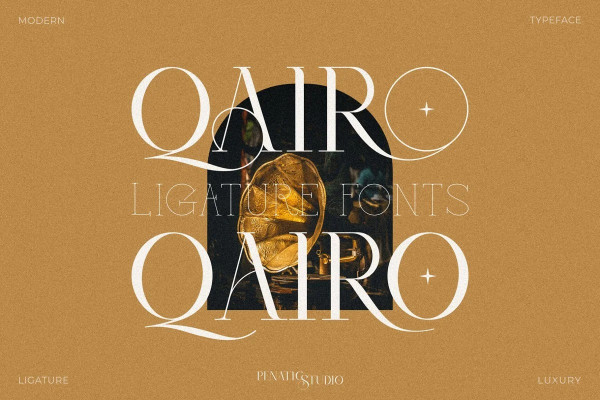
Qairo Font
Qairo Font a very classy modern serif font that uses multiple ligatures and font substitutions. So users can choose to make variations or designs on the letters easily. very suitable for use in various applications including brand identity, invitations, magazines, logo designs and others.